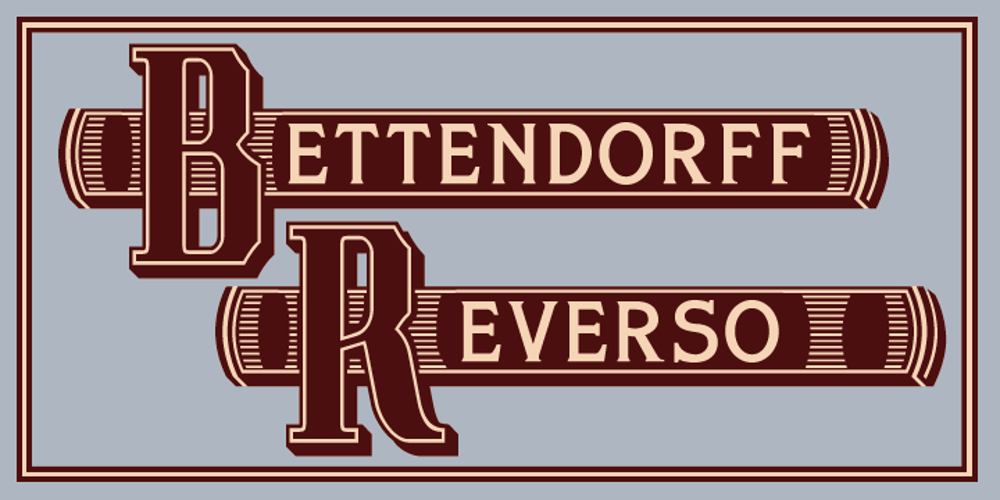
Bettendorff Font Family was designed by Paul James Lloyd and published by Greater Albion Typefounders. Bettendorff contains 2 styles and family package options. Bettendorff is one of two new ‘Masthead’ typefaces from Greater Albion. This 1900’s inspired face makes the construction of ribbon or cartouche banners and mastheads the simple work of a few moments. Bettendorff is also particularly designed to compliment our Spargo and Mexborough families.